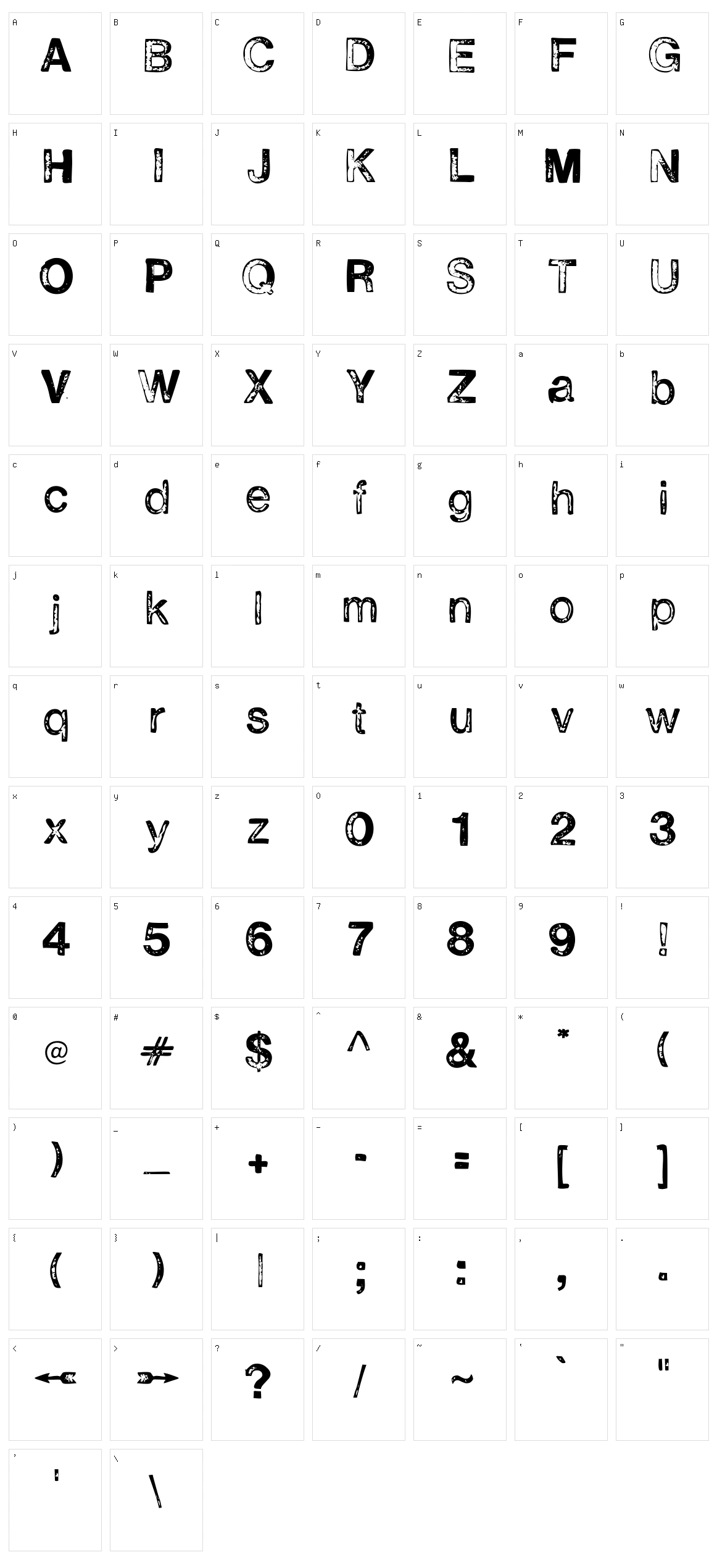
The free font H2D2 Alevita is carefully designed by Markus Remscheid, showcasing a thoughtful balance of creativity and usability and falls under the Eroded font style. When you download the ZIP file, it contains only 108.28 KB of font files, making it lightweight and quick to download. Please review the license details below to understand permitted usage and distribution rights. If license information is not available, we recommend using this font for personal projects only or contacting the author directly for commercial usage permissions.